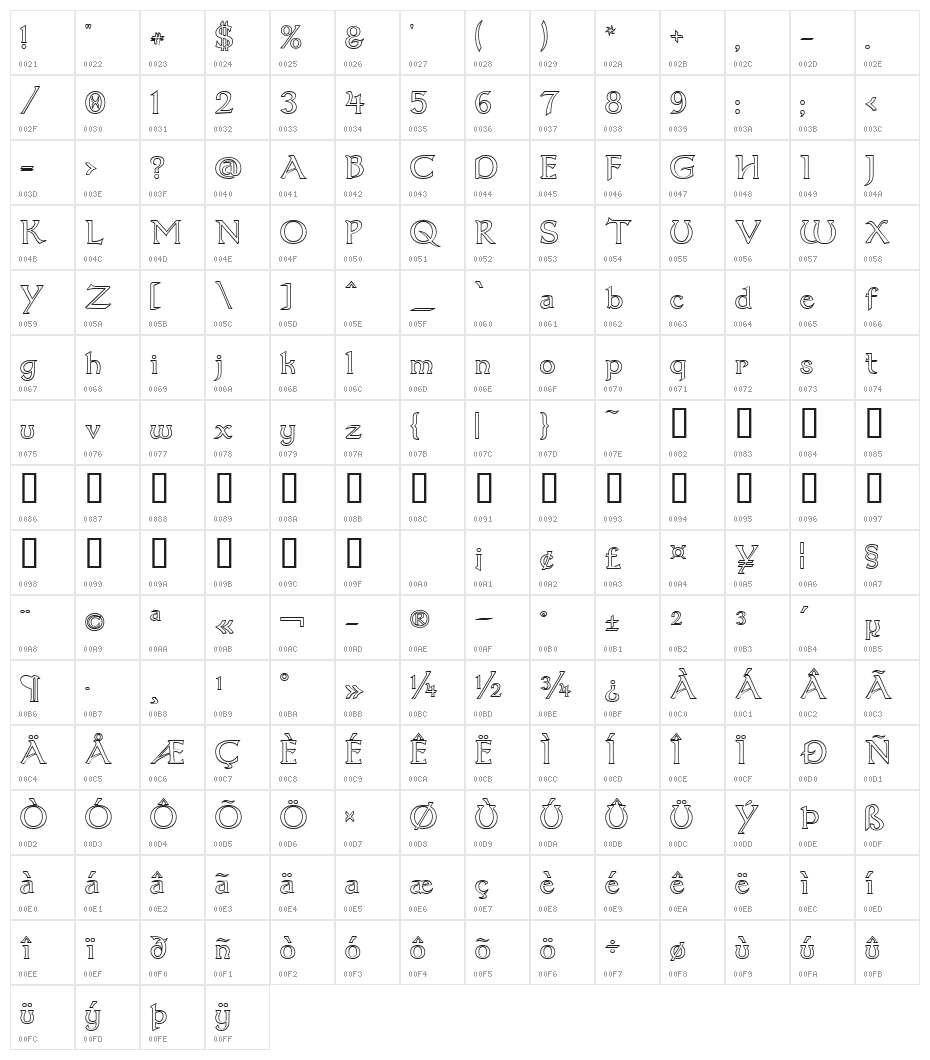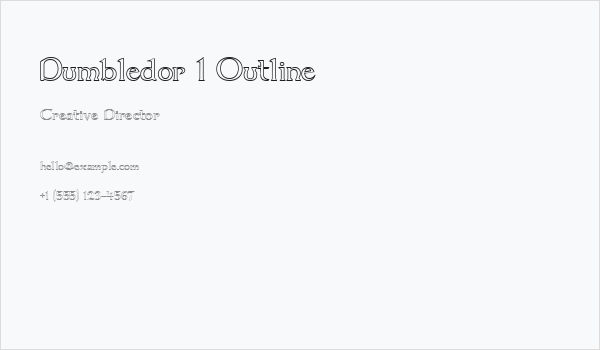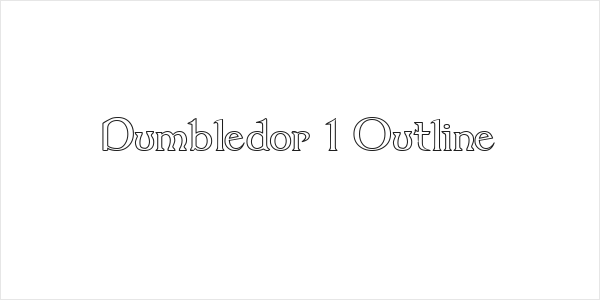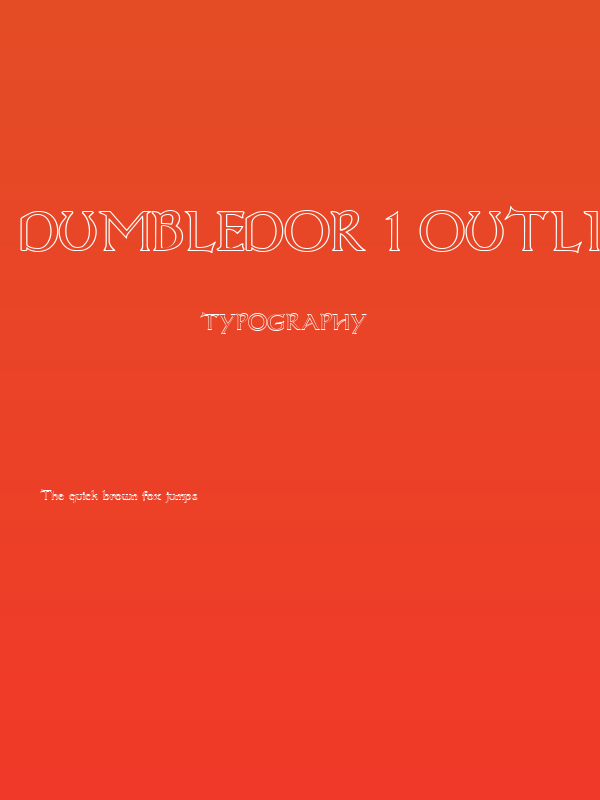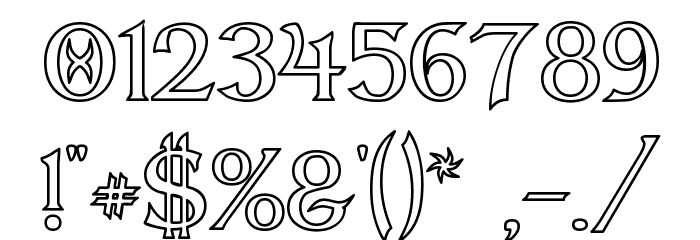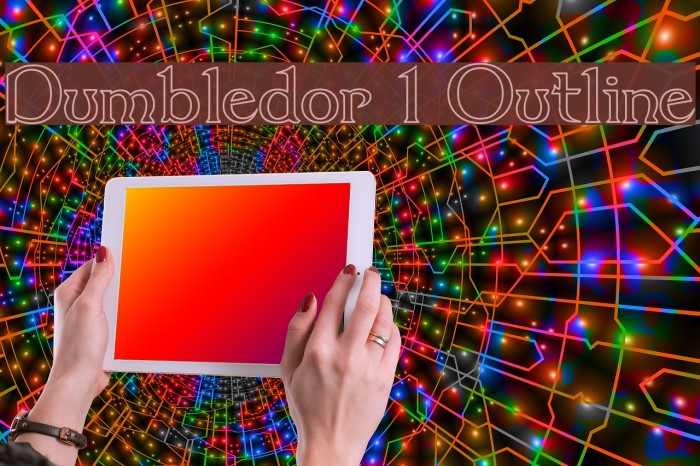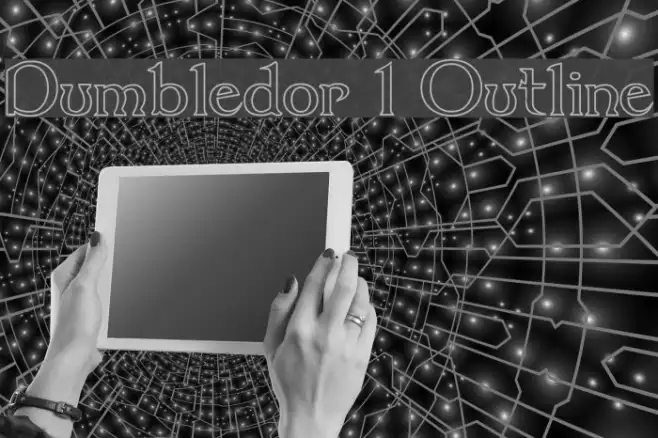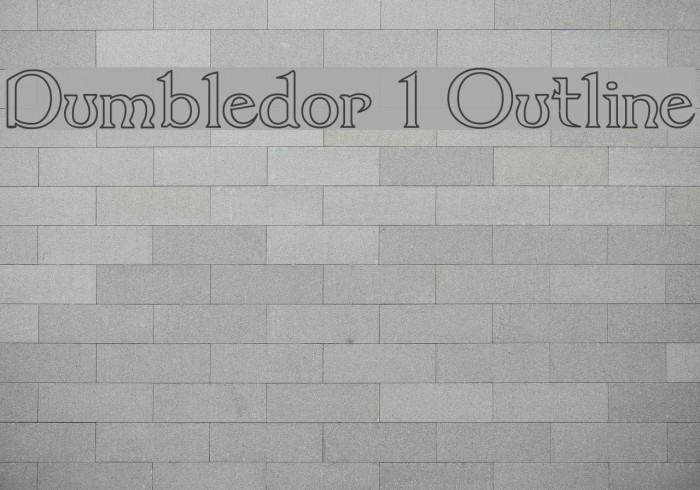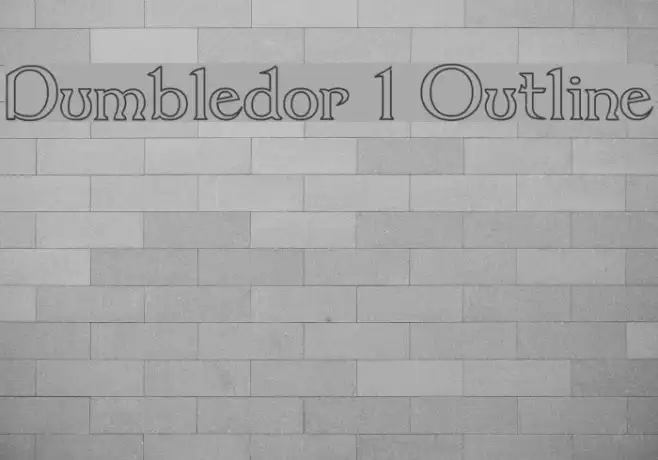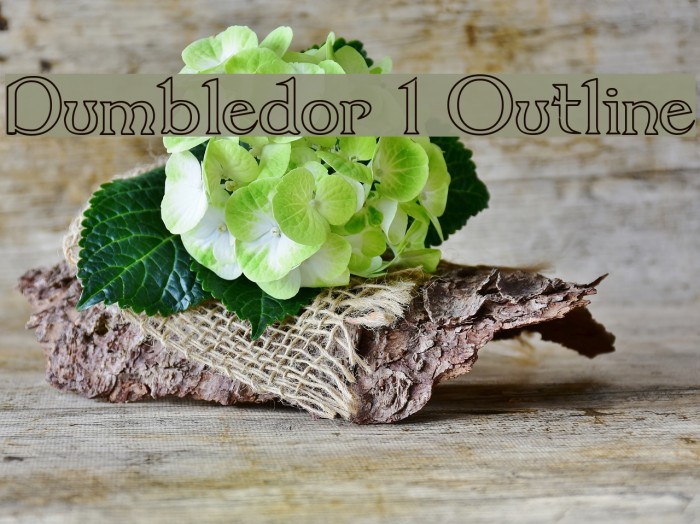
Dumbledor 1 Outline Font
Dumbledor 1 Outline Description
This font features a distinct outline style with a classic yet whimsical appearance. The uppercase letters have a strong presence with sharp angles and unique serifs, giving them a slightly medieval or fantasy feel. The lowercase letters maintain this theme with consistent stroke widths and playful curves. Numbers are bold and easily readable, while special characters are creatively designed to match the overall aesthetic. The font's outline nature makes it suitable for decorative purposes, adding a touch of elegance and intrigue to any design.
| Overall Style | Fantasy, Decorative |
| Proposed Projects | Ideal for fantasy-themed projects, book covers, posters, and branding that requires a touch of whimsy and elegance. |